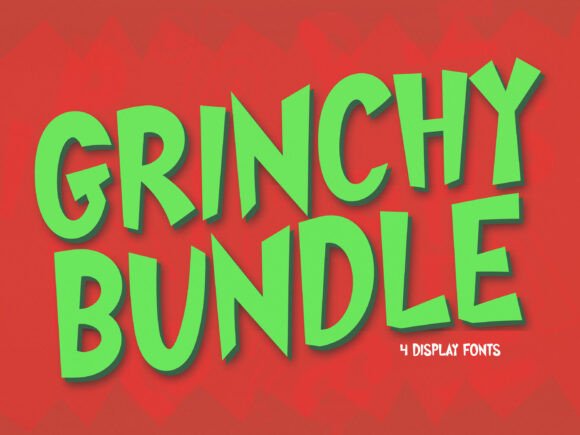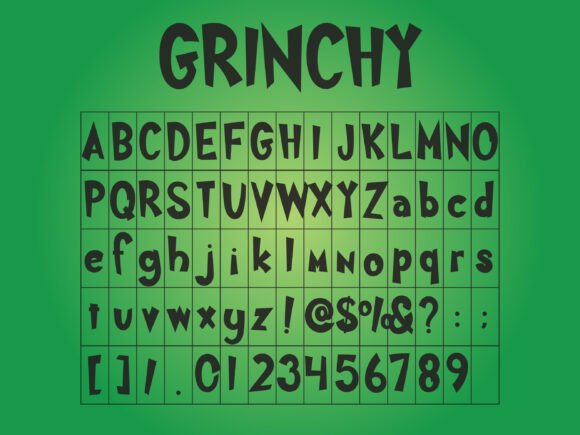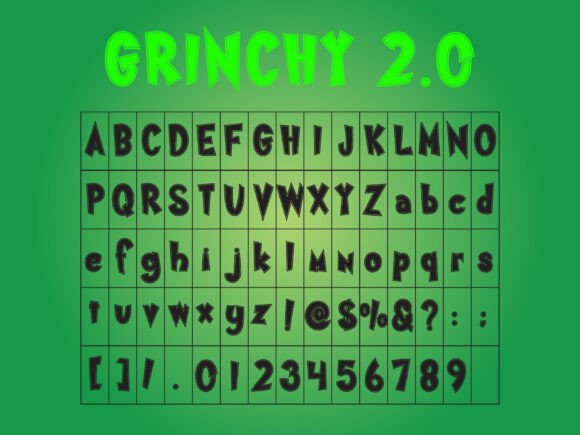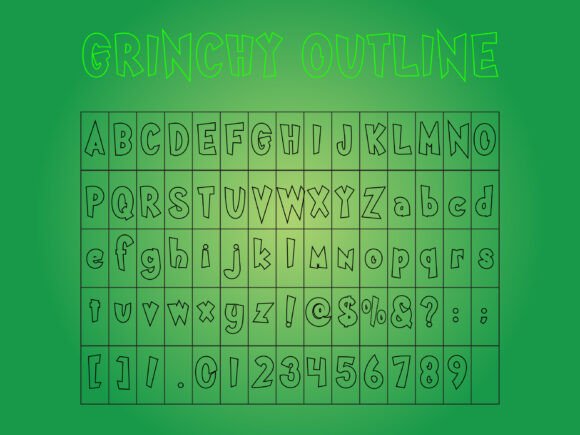
Grinchy Bundle Font
About the Grinchy Bundle Font
Presenting Grinchy Bundle Font, a unique and stylish typeface that will make your work stand out. Grinchy is a fun and quirky display font. It embodies playfulness and authenticity and is the Perfect for greeting cards, invitations, or any design that seeks to embody the spirit of the season with a hint of timeless elegance.
Grinchy’s playful yet elegant nature makes it ideal for headlines, short text blocks on posters, and branding elements requiring a touch of whimsy. It excels in creating eye-catching logos or packaging for products targeting a younger, fun-loving demographic. Avoid using Grinchy for body text or long paragraphs; its quirky character isn’t suited for readability in extended passages.
Pairing Grinchy with a clean sans-serif like Open Sans for body copy provides excellent contrast, balancing its playful energy with straightforward legibility. Alternatively, a classic serif font such as Garamond could add sophistication, creating a refined, yet festive pairing.
Grinchy’s core personality is best described as boldly playful, with a hint of sophisticated charm. This makes it an excellent choice for brands focused on festive occasions, children’s products, or projects seeking a unique, attention-grabbing aesthetic.